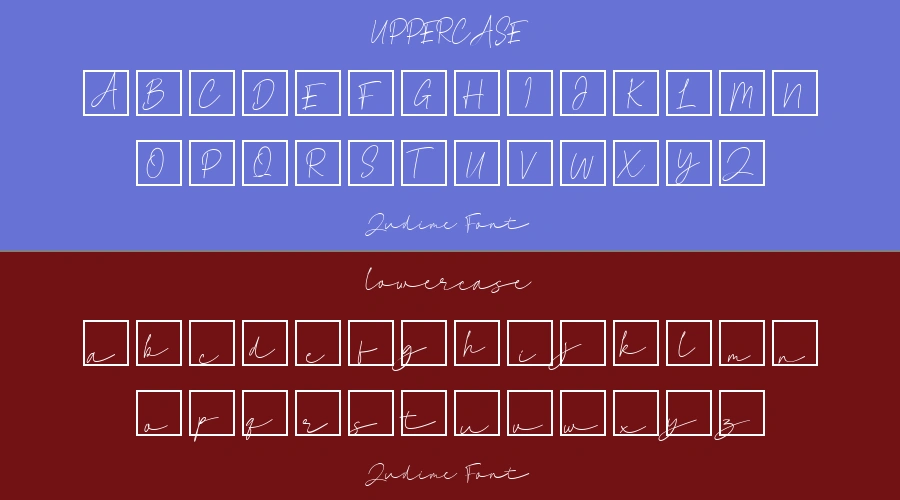
About Zudime Font
Designed with precision, Zudime Font merges rhythmic patterns with technical accuracy in every character. This versatility makes it particularly effective for academic publications, where longevity and design excellence directly impact communication quality. Each letterform demonstrates meticulous craftsmanship.
Technical excellence shines through elements like bold expressions and lining figures, enhancing typographic versatility. In artistic statements settings, Zudime Font proves its worth through superior small text clarity. The thoughtful execution of shoulder shape and brand personality ensures professional results.